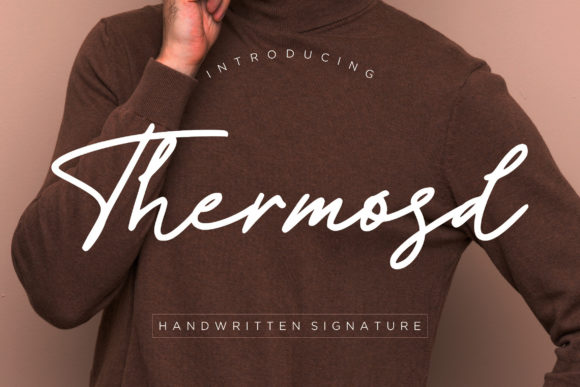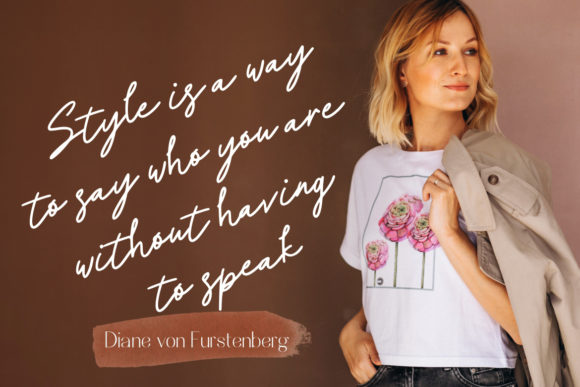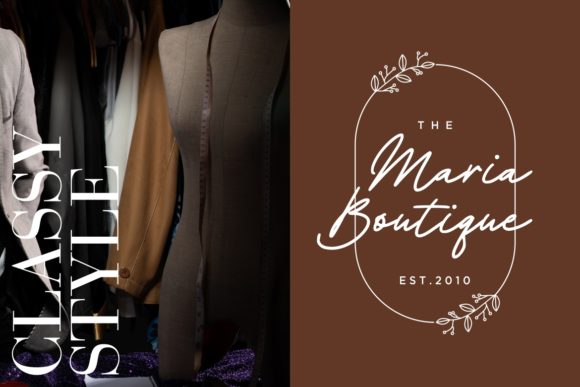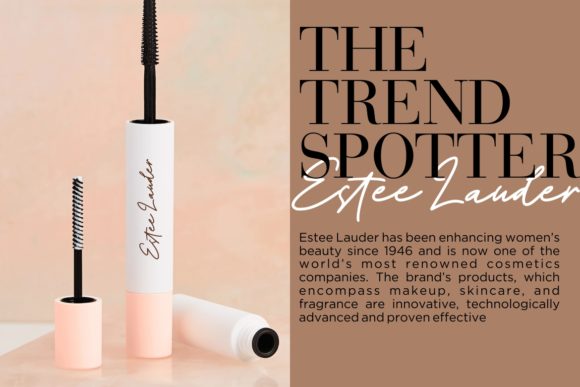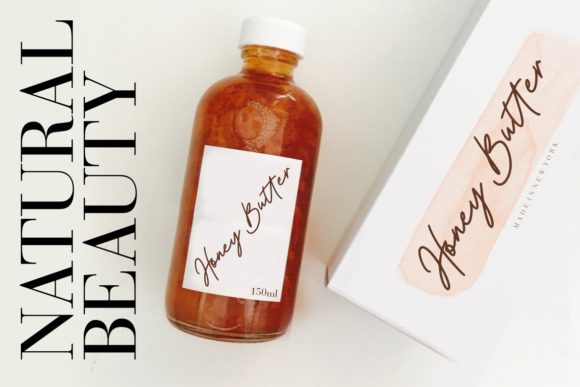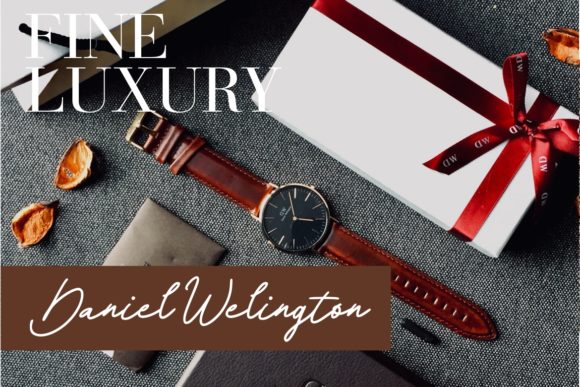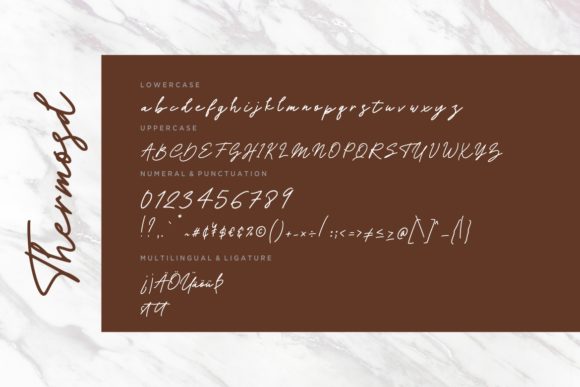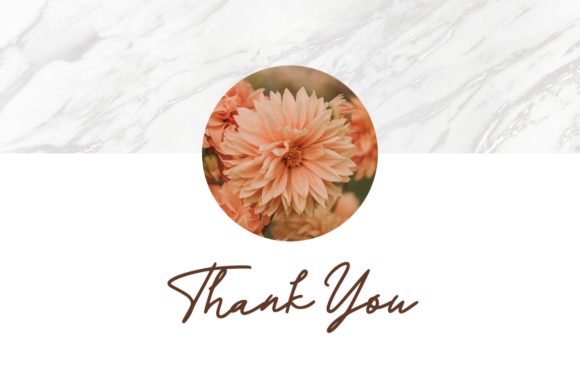
Thermosd Handwritten Signature Font
About Thermosd Handwritten Signature Font
Thermosd is an incredibly modern and sweet handwritten font that will turn any design idea into a true standout!